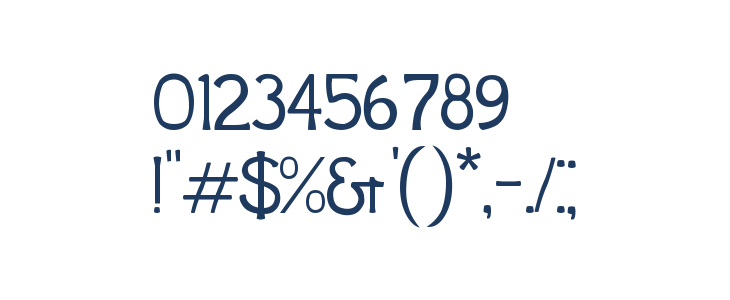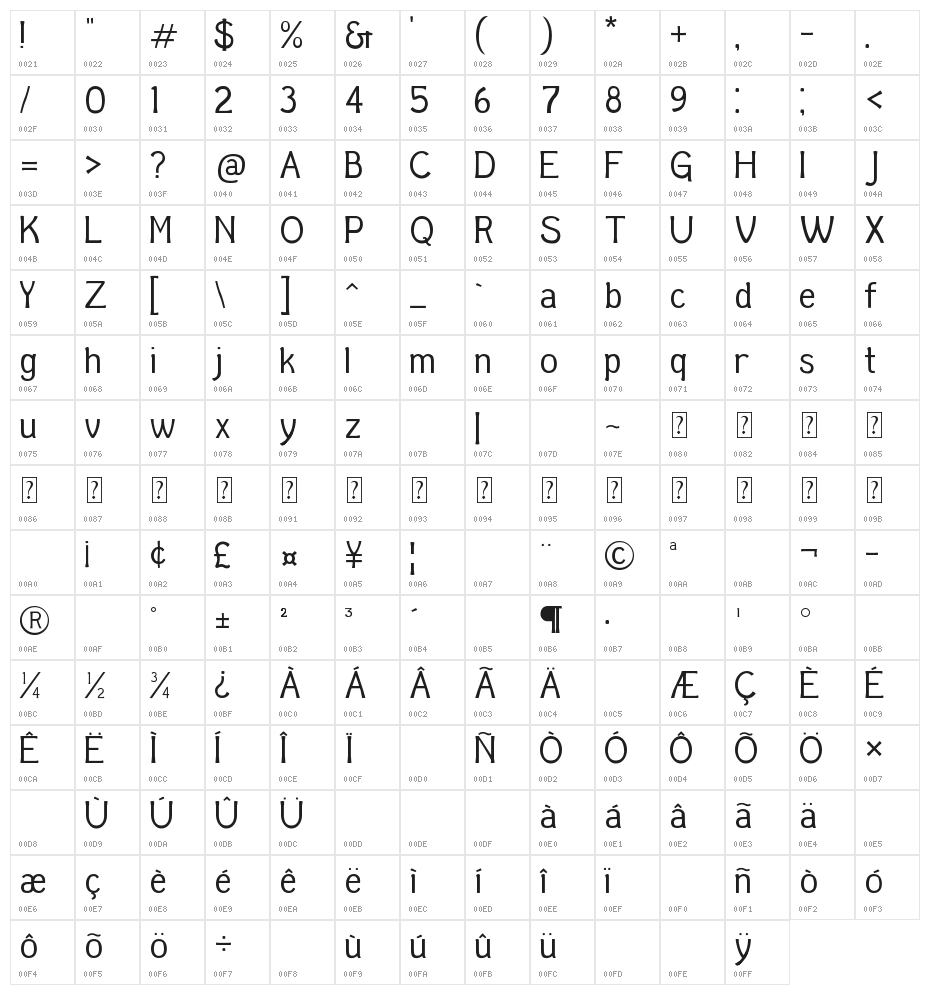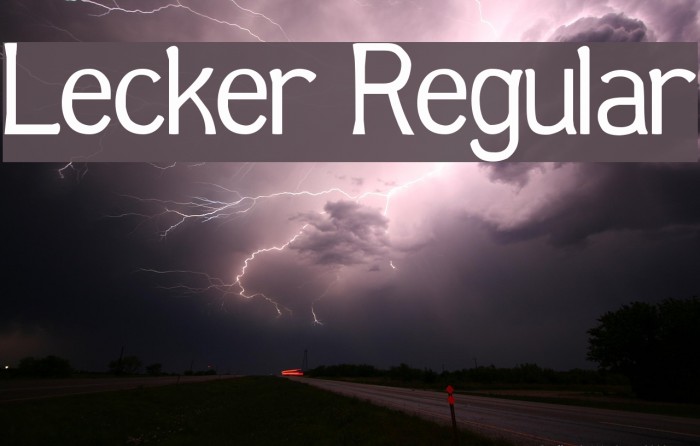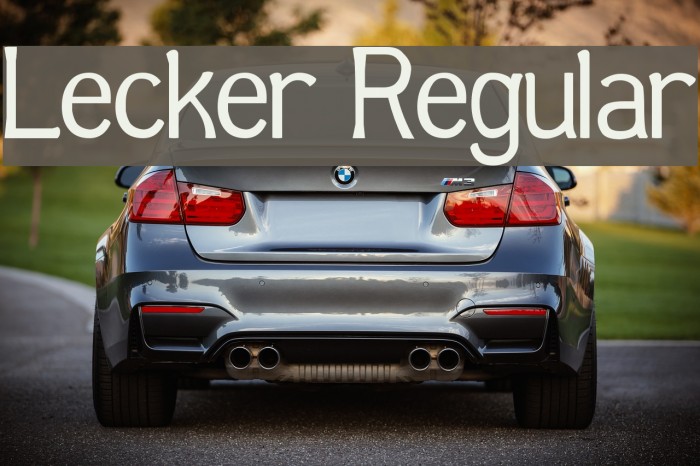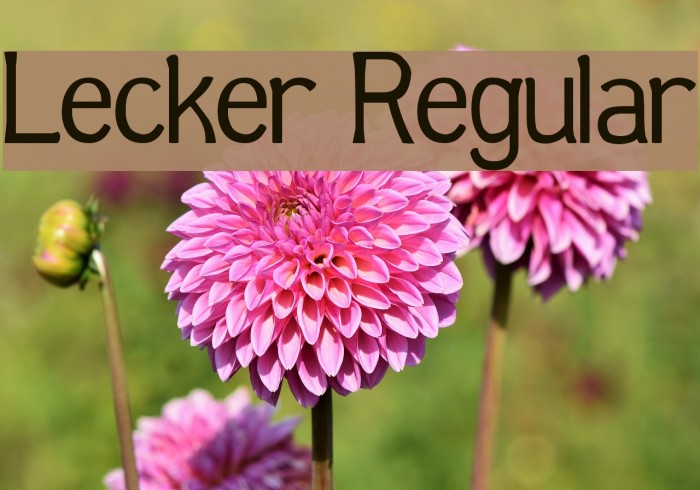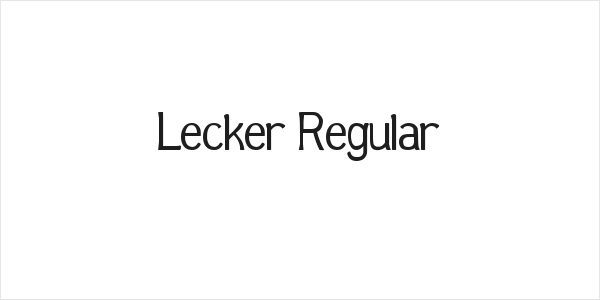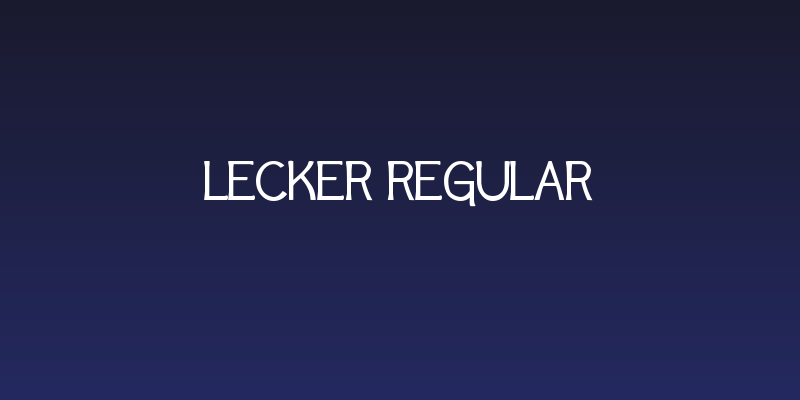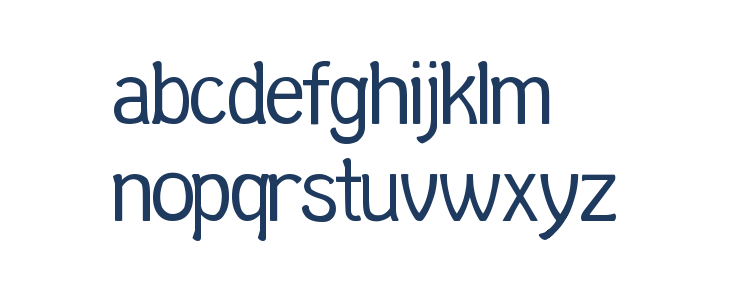
Lecker Regular Font
| Progetti proposti | Ideal for branding, advertising, web design, and editorial projects where a modern and friendly typeface is desired. |